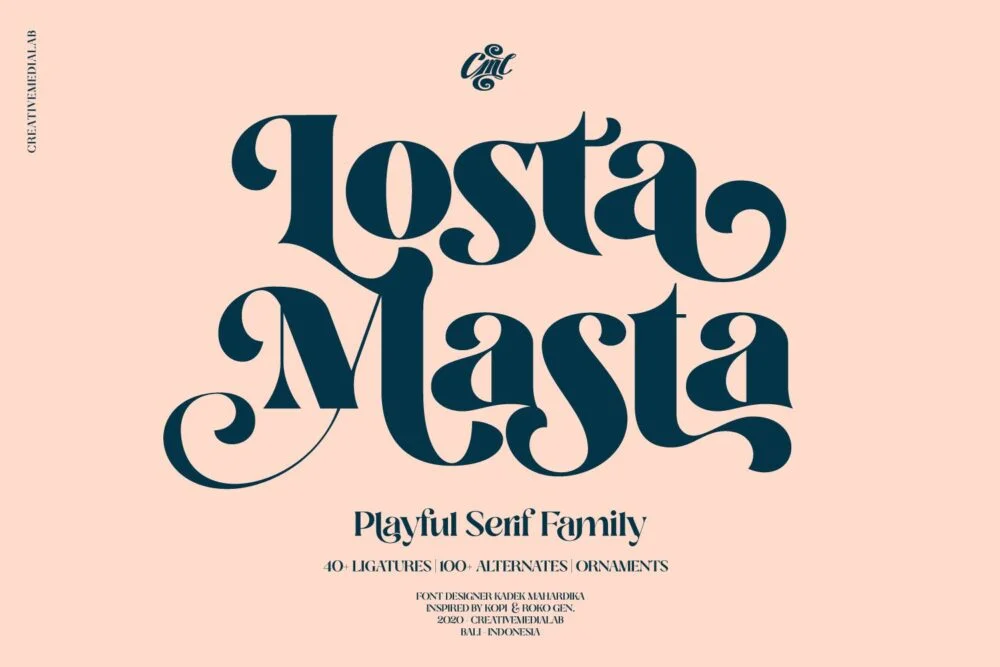
Losta Masta Font
Losta Masta Font fun and playful serif family. This font is suitable for many design forms, such as magazines, postcards, logos, DIY Projects, invitation cards, quotes, vintage look design, an old classic, the 60s, 70s, 80s, wedding projects, and much more.